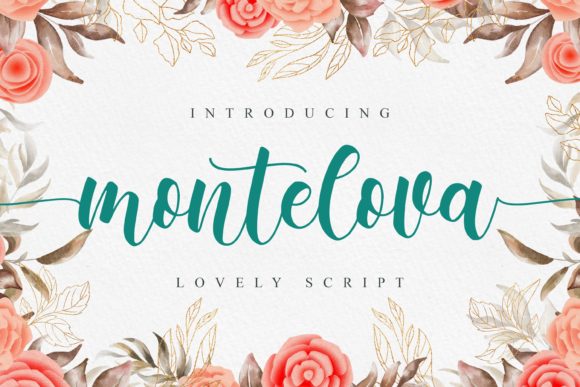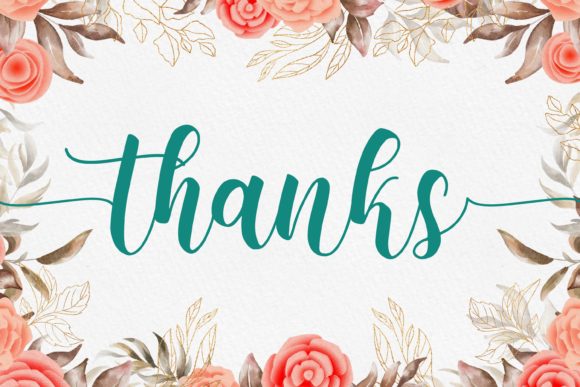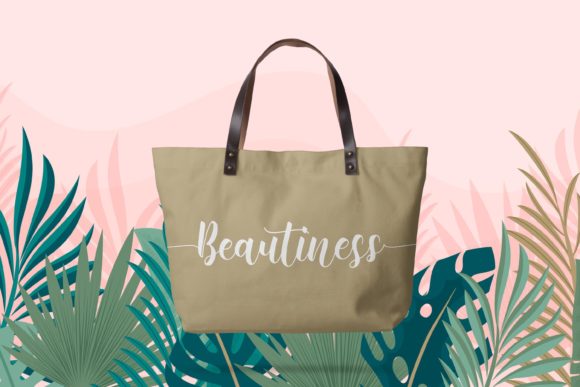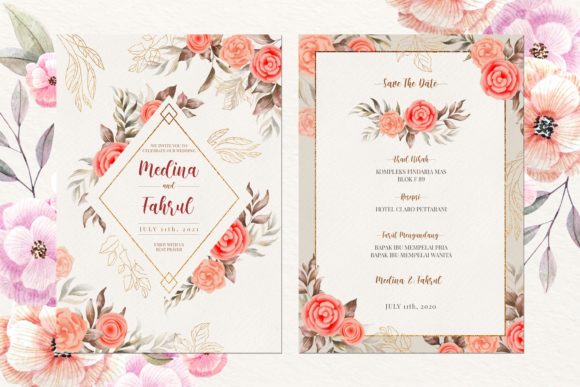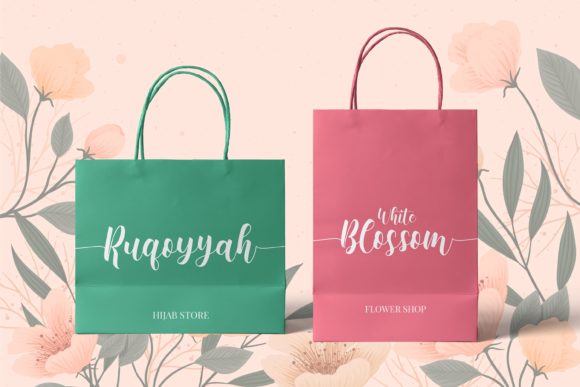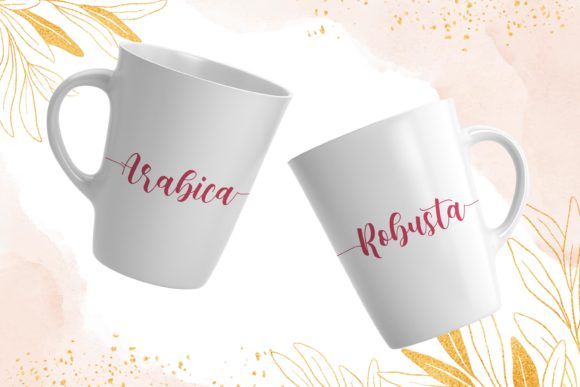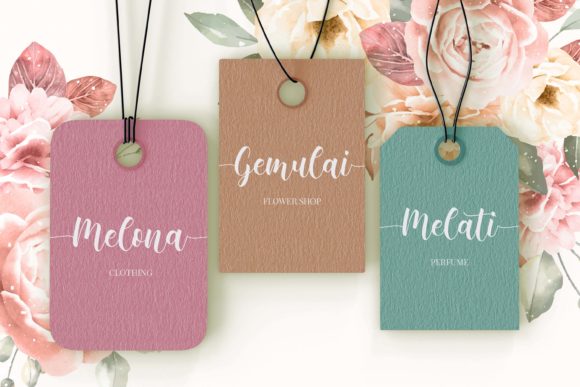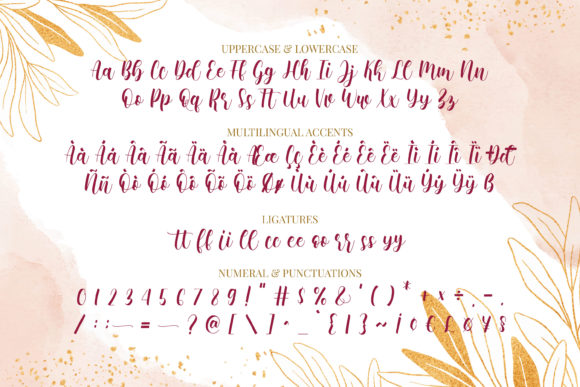
Montelova Font
About Montelova Font
Montelova is a beautiful handwritten font that captures a sense of elegance and versatility. With its charming and versatile style, this font is perfect for a wide range of design projects, from wedding invitations to stationary art, social media posts, and beyond.
The lovely and flowing nature of Montelova’s letterforms adds a touch of grace and sophistication to any design. Each stroke is carefully crafted, resulting in smooth and harmonious curves that create a visually pleasing aesthetic. Whether you’re aiming for a romantic and dreamy look or a more whimsical and playful vibe, Montelova can adapt to your creative vision.
One of the strengths of Montelova is its versatility. It can be used to create stunning wedding invitations that evoke a sense of romance and beauty. The delicate yet legible letterforms make it suitable for conveying important information while adding an artistic touch to your invitations. Additionally, Montelova can be utilized for creating beautiful stationary art, such as personalized note cards, journals, or letterheads, adding a touch of elegance to your correspondence.
Moreover, Montelova is well-suited for eye-catching social media posts. Its unique and visually appealing style can help your posts stand out in a crowded feed, attracting attention and engaging your audience. Whether you’re promoting a product, sharing a quote, or simply expressing your creativity, Montelova adds a touch of charm and personality to your social media presence.
The versatility of Montelova extends beyond these examples, allowing you to explore various design projects where a lovely handwritten font is needed. From logos and branding materials to greeting cards, posters, and more, Montelova’s adaptable style can enhance the overall aesthetic and impact of your designs.
In summary, Montelova is a lovely handwritten font that offers incredible versatility and can be used to create stunning designs across different platforms and projects. Its charming and flowing style adds an elegant touch to wedding invitations, stationary art, social media posts, and more. Fall in love with Montelova and unleash your creativity with its endless possibilities.